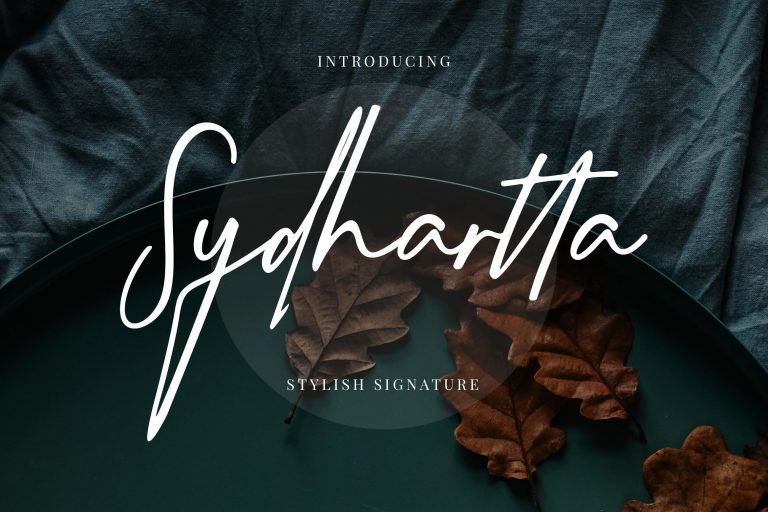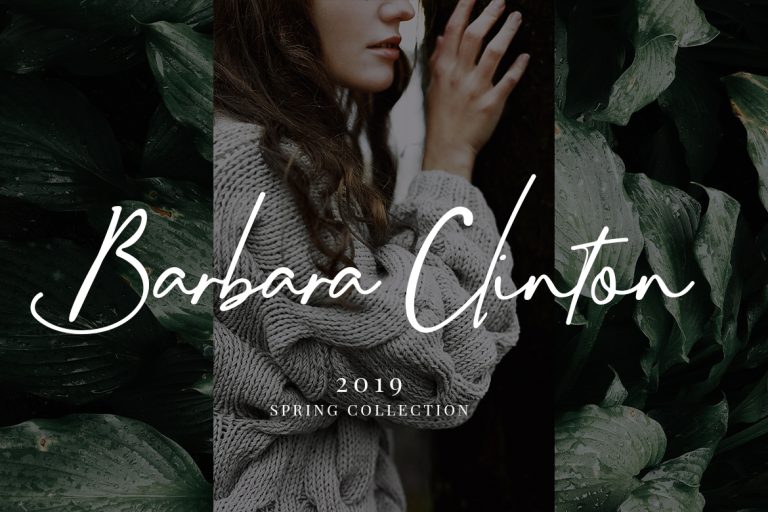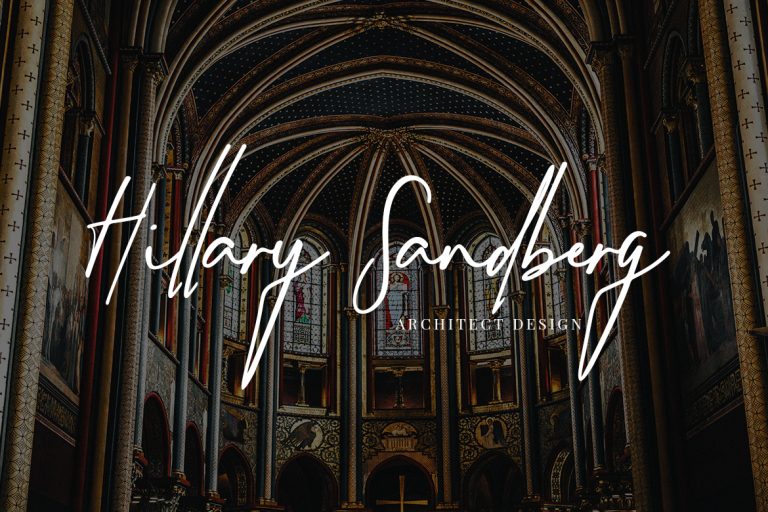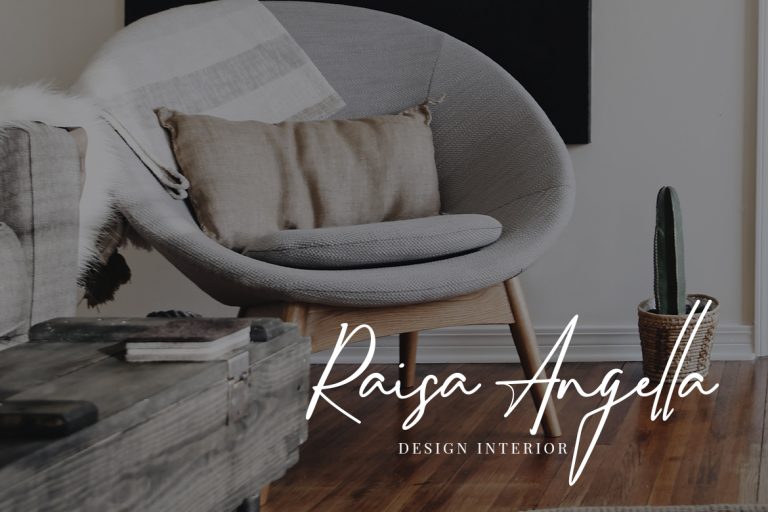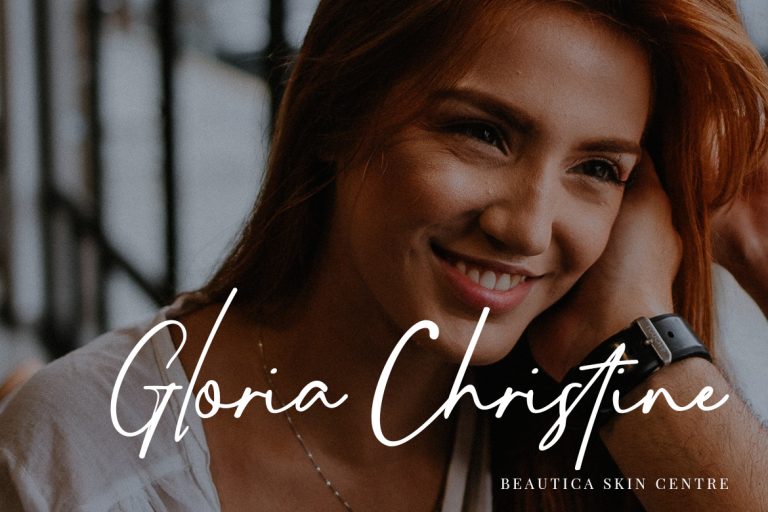
Sydhartta a cool and clean handwritten font with stylish signature touch.
Sydhartta is perfect for branding projects, logo, wedding designs, social media posts, advertisements, product packaging, product designs, label, photography, watermark, invitation, stationery and any projects that need handwriting taste.
- Fonts include multilingual support for; ä ö ü Ä Ö Ü ß ¿ ¡
Sydhartta Stylish Signature